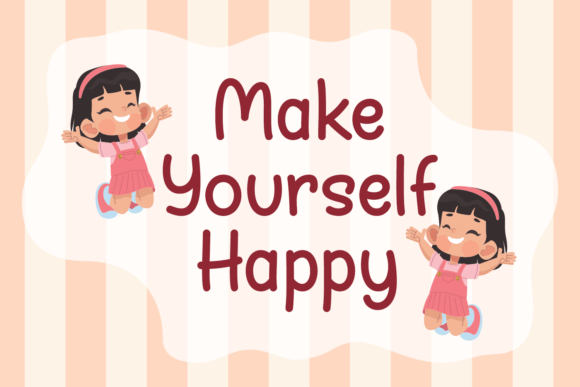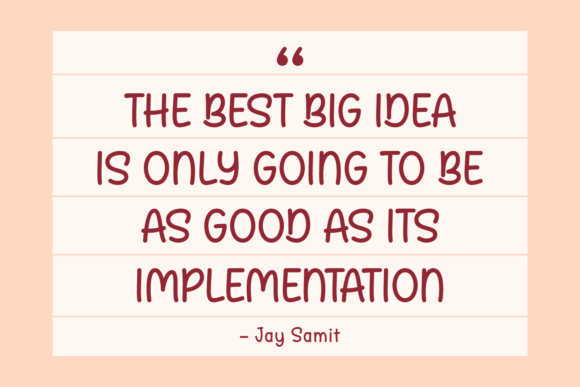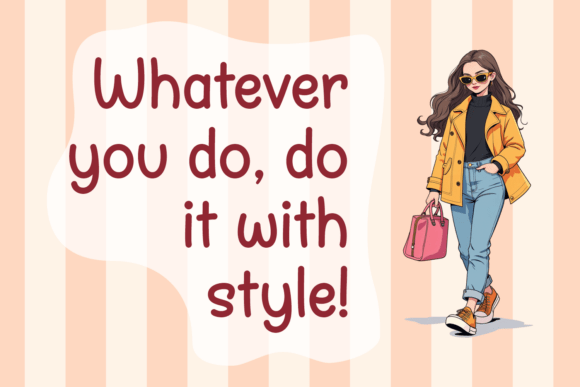
Brown Delight Font: The Perfect Addition to Your Design Arsenal
Are you a designer or crafter looking for a unique and versatile font to elevate your projects? Look no further than Brown Delight, a charming handwriting font that’s perfect for a wide range of applications. In this article, we’ll dive into the world of Brown Delight, exploring its features, uses, and benefits, and why it’s a must-have for any creative looking to add a personal touch to their designs.
What is Brown Delight Font?
Brown Delight is a beautiful, hand-written font that’s been carefully crafted to bring a touch of warmth and personality to your designs. Its natural, flowing style makes it perfect for creating eye-catching headlines, labels, and quotes, while its unique charm is sure to capture the attention of your audience. Whether you’re working on a social media project, crafting a wedding invitation, or designing a logo, Brown Delight is the perfect choice.
Features of Brown Delight Font
- Cute and Handwritten: Brown Delight boasts a delightful, hand-written style that’s sure to add a personal touch to your designs.
- Versatile: This font is incredibly versatile, making it perfect for a wide range of applications, from branding and wedding invitations to logos, product packaging, and more.
- Unique Style: Brown Delight’s natural and unique style makes it incredibly fitting for a large pool of designs, allowing you to experiment and push the boundaries of your creativity.
- Easy to Read: Despite its playful style, Brown Delight is easy to read, making it perfect for use in body text, headlines, and more.
Uses of Brown Delight Font
So, what can you use Brown Delight for? The possibilities are endless! Here are just a few ideas to get you started:
- Branding: Use Brown Delight to create a unique and memorable brand identity that sets you apart from the competition.
- Wedding Invitations: Add a touch of romance and whimsy to your wedding invitations with Brown Delight.
- Logos: Create a custom logo that showcases your brand’s personality with Brown Delight.
- Product Packaging: Use Brown Delight to add a personal touch to your product packaging and make it stand out on store shelves.
- Headlines and Labels: Add a pop of personality to your headlines and labels with Brown Delight.
- Book Covers: Use Brown Delight to create eye-catching book covers that grab readers’ attention.
- Posters and Quotes: Add a touch of inspiration and motivation to your posters and quotes with Brown Delight.
Benefits of Using Brown Delight Font
So, why should you choose Brown Delight for your next project? Here are just a few benefits of using this amazing font:
- Unique Style: Brown Delight’s unique style sets it apart from other fonts, ensuring your designs stand out from the crowd.
- Flexibility: This font is incredibly versatile, making it perfect for a wide range of applications and design styles.
- Ease of Use: Brown Delight is easy to read and works well in both digital and print formats.
- Time-Saving: With Brown Delight, you can create stunning designs in no time, saving you time and effort.
| Font Name | Brown Delight Font |
| Author | Eightde |